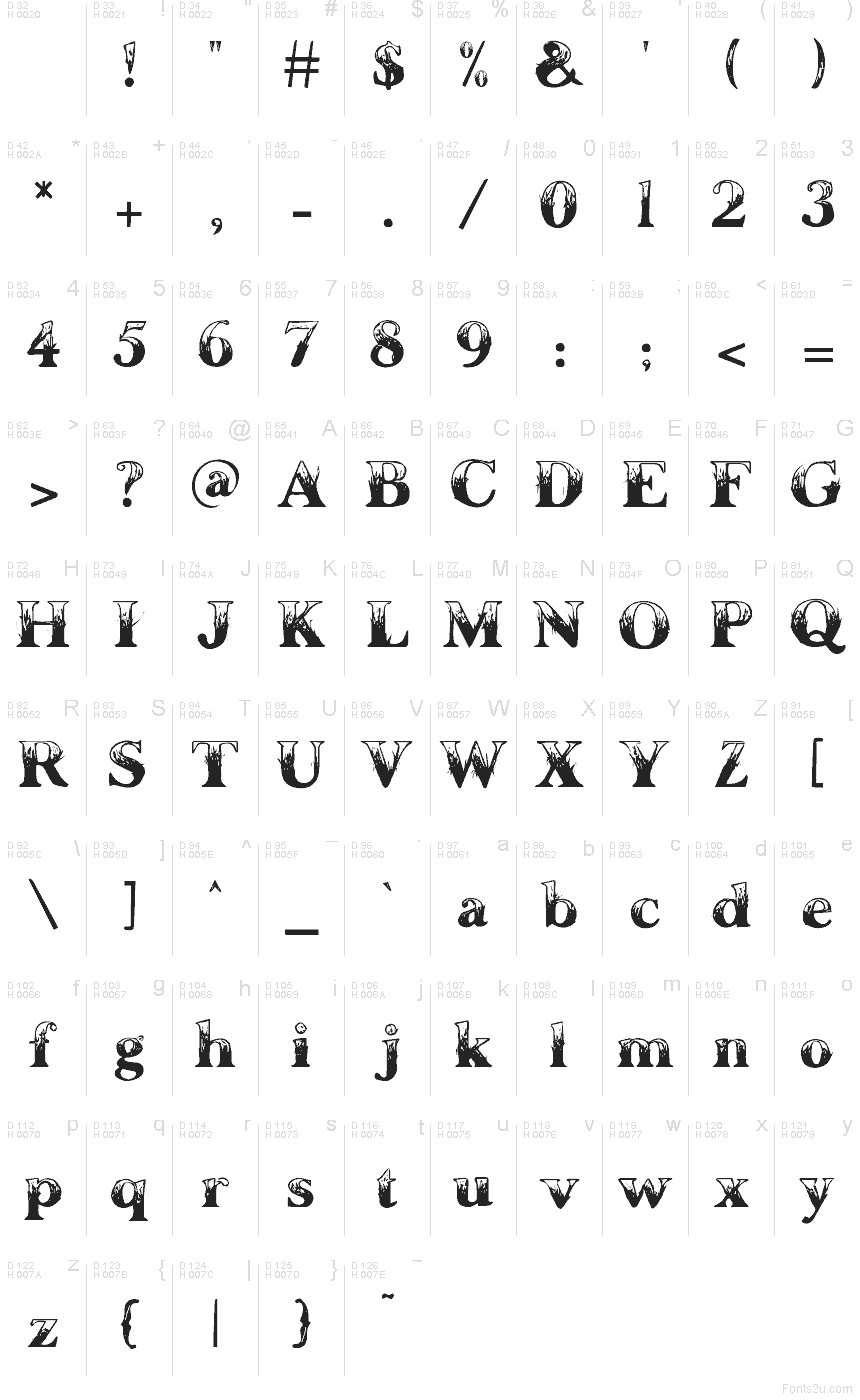
La Nuit des Secrets
La Nuit des Secrets font by BlackFridayFont FMF is a free decorative display typeface that feels like it’s been pulled from a damp, forgotten attic. Tall, slightly formal letterforms are torn up with scratchy, ink-splattered textures that creep into every curve, giving each word a shuddering, hand-distressed look. It balances old-world elegance with a gritty, haunted edge, so your titles feel less like neat text and more like something whispered in the dark.
Using La Nuit des Secrets, you can instantly set the tone for horror posters, Halloween party invites, eerie book covers, escape room branding, game titles, or spooky event flyers. This free font thrives in large sizes where its tangled details stay sharp and unsettling. For supporting text, pair it with a clean, neutral sans serif to keep everything readable while La Nuit des Secrets steals the spotlight.